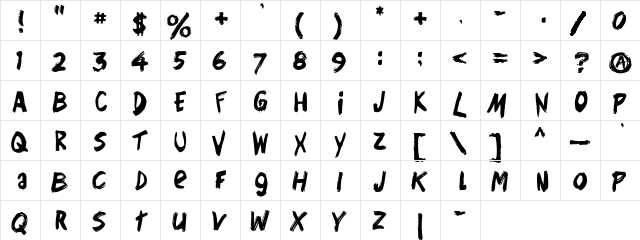
Don't Forget Regular
Design Context for Don't Forget Typeface
Don't Forget is a composed and adaptable typeface that performs quietly and consistently across a wide range of design contexts.
Pro Tip: Pair Don't Forget with a font of contrasting weight or personality to build a more expressive typographic hierarchy.